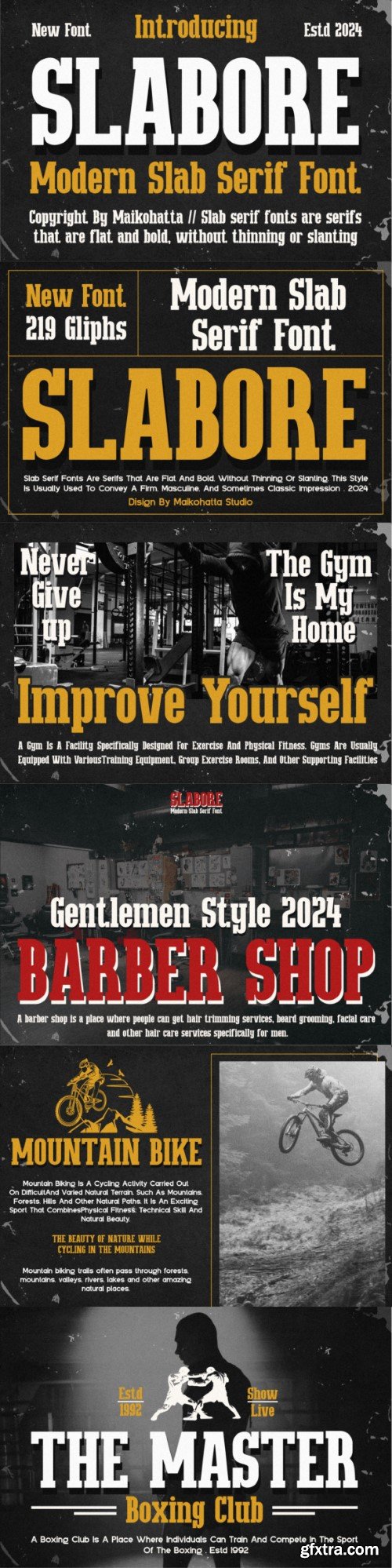
沙波莱字体
Introducing our new product **Slabore** – Modern Slab Serif
This font features a balanced proportion of stroke thickness and fineness, creating attractive and easy-to-read visuals. This modern serif style is often characterized by a bold distinction between thick and thin lines, providing a touch that is understated but still stands out.